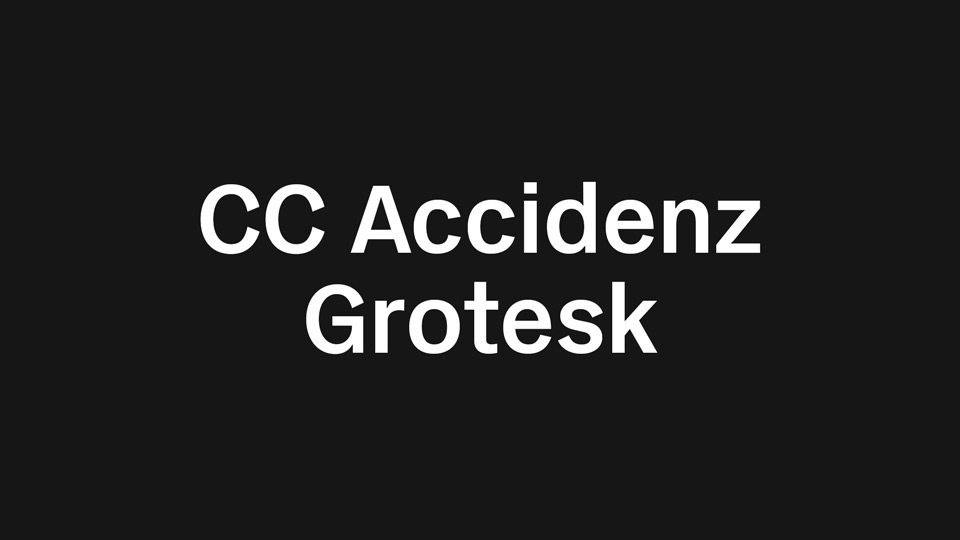
Download CC Accidenz Grotesk font, a contemporary, versatile, and neutral version of Akzidenz Grotesk, created for Creative Commons.
Designer: Archetypo